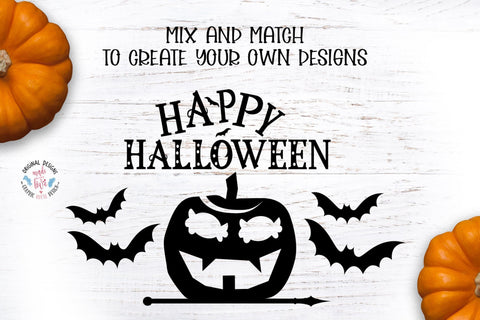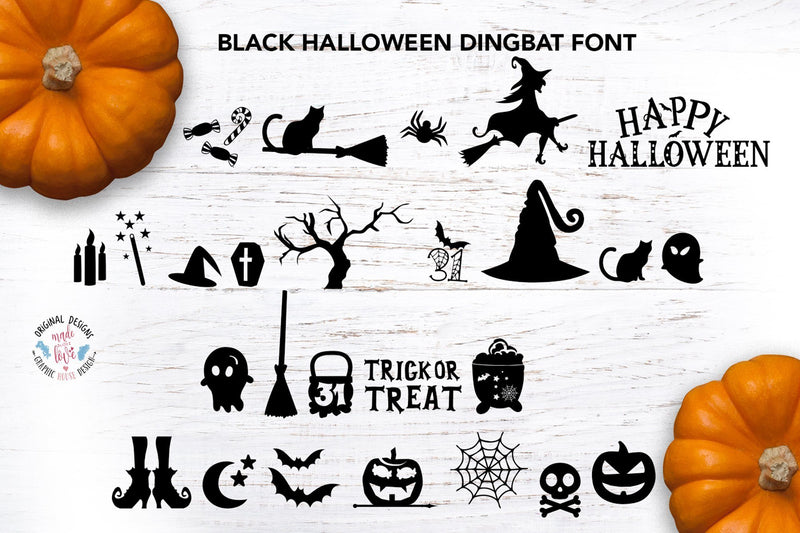
Black Halloween Dingbat Font
Black Halloween Dingbat Font is on Open Type Font for display/decorative use.
Ideal for your Halloween Projects such as invitations, flyers, logo or even crafting creations.